What's the worst handwriting or script font ever? Welcome to this disaster-filled region of Font Madness — our month-long quest to crown the worst font ever. Let's get to the voting:
#1 Brush Script vs. #16 Palace Script MT
Why Brush Script Is The Worst
No, this is not fun and fancy. It’s cheap and rude. It stings the soul of anyone forced to lay unsuspecting eyes upon it’s cringeworthy clunkiness. Somewhere in the world there is a bakery that uses Brush Script and Lucida Calligraphy together on the same menu and I will never eat at that bakery.
Why Palace Script MT Is The Worst
Nevermind the fact that a 44pt font appears as an 8pt font with this typeface, nothing cheapens up whatever faux-fancy masterpiece you're making faster than a few words in Palace Script MT.
#8 Bradley Hand ITC vs. #9 Willona
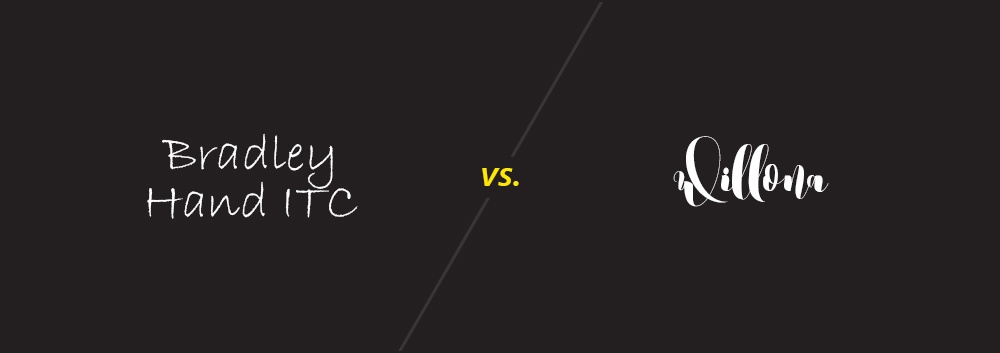
Why Bradley Hand ITC Is The Worst
Let us ignore the irony that are handwritten fonts for a second. This is just bad handwriting. Who gave Bradley is own font? C'mon, people.
Why Willona Is The Worst
Willona, you're taking the fall for the entire Millennial Wedding Script genre here. There's a new custom typeface popping up everyday that more or less looks exactly like this. You know the type. It's calligraphy with a dash of pumpkin spice latte.
#5 Mistral vs. #12 Amatic SC
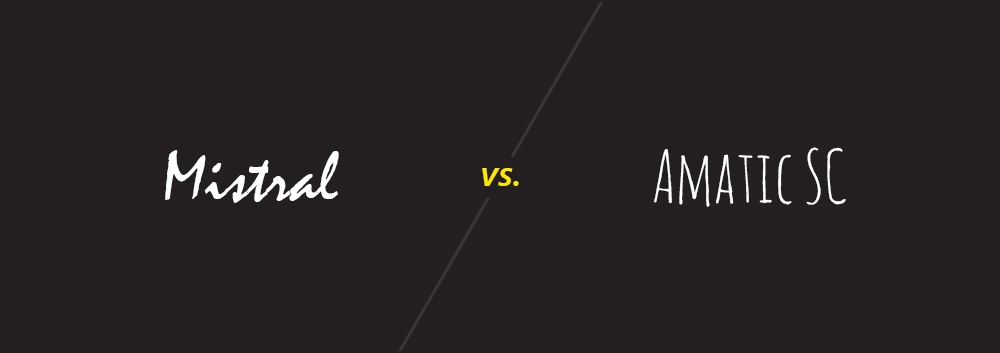
Why Mistral Is The Worst
Never has a cursive font so obviously been computer type. But that won't stop people from trying. You know those insurance company letters you get in the mail that put a few words in red on the top of the envelope to make you think it's important and actually handwritten? It's not real. It's Mistral.
Why Amatic SC Is The Worst
If terrible fonts had a "Top Prospects" list, Amatic SC would be leading the charge. It has skyrocketed in overuse in recent years, primarily in the Inspirational Quotes On Foggy Pine Trees Background department.
#4 Chalkboard vs. #13 Apple Chancery
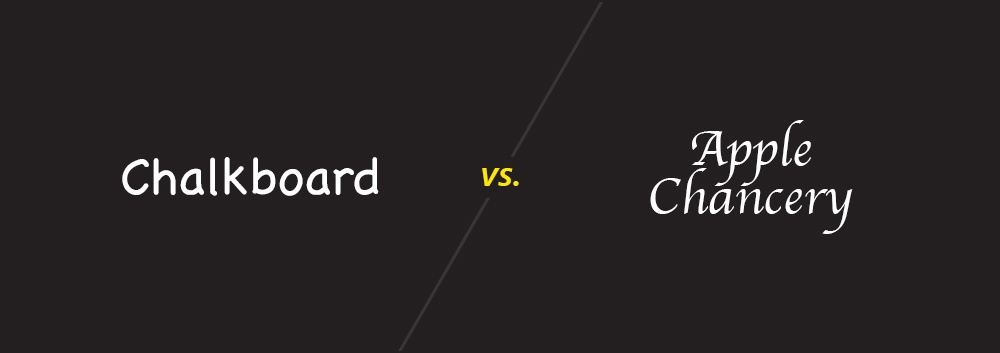
Why Chalkboard Is The Worst
Wait...is that?
No, it is not Comic Sans. Someone actually spent the time to make a typeface that is allllmost Comic Sans, but not quite. I think that makes it worse.
Why Apple Chancery Is The Worst
It this is a script font? Is this a serif font? Is this a decorative font? Whatever it is, it is a bad font.
#6 Segoe Script vs. #11 Vivaldi Italic
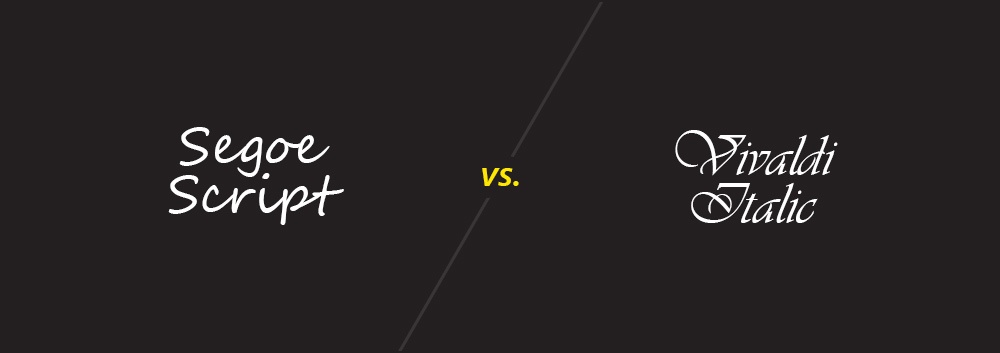
Why Segoe Script Is The Worst
We can thank Microsoft for popularizing this Mistral-inspired gem that allows people to believe they can design their own logos.
Why Vivaldi Italic Is The Worst
If you like illegible capital letters and unpleasantly distinct fake handwriting, Vivaldi Italic is your guy.
#3 Rage Italic vs. #14 Freestyle Script
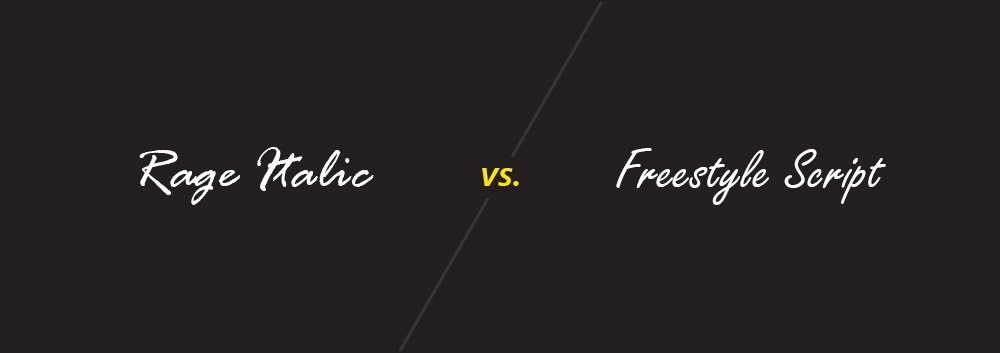
Why Rage Italic Is The Worst
I'll give Rage Italic this: it is appropriately named. It's been infuriating me for longer than I care to remember.
Why Freestyle Script Is The Worst
Freestyle Script is Adobe's best shot at obviously not fooling anyone into believing they're looking at handwriting. Even the default kerning leaves ugly gaps between the characters.
#7 Kristen ITC vs. #10 Noteworthy
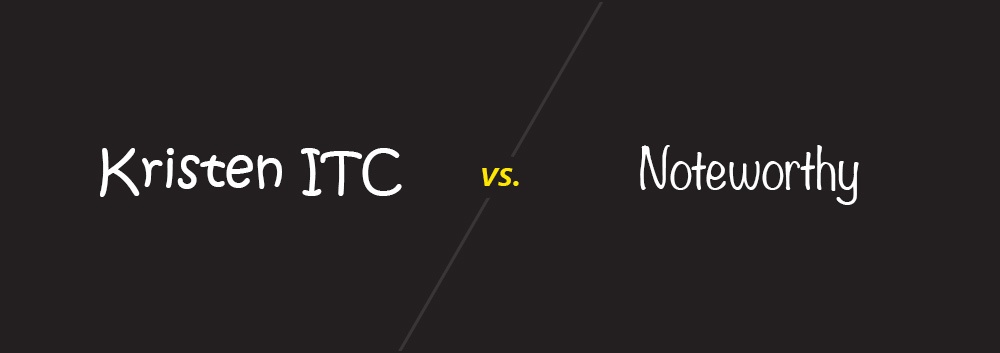
Why Kristen ITC Is The Worst
Oh, come on. You're better off taking a physical crayon and just haphazardly scribbling over your monitor than you are producing any material written in Kristen ITC.
Why Noteworthy Is The Worst
Yep, this is the font your Facebook friend from high school overlays in neon green on some pyramid sch—sorry, "multi-level marketing business opportunity"—product photo she's trying to shill.
No thanks, Kathy.
#2 Lucida Calligraphy vs. #15 Vladimir Script
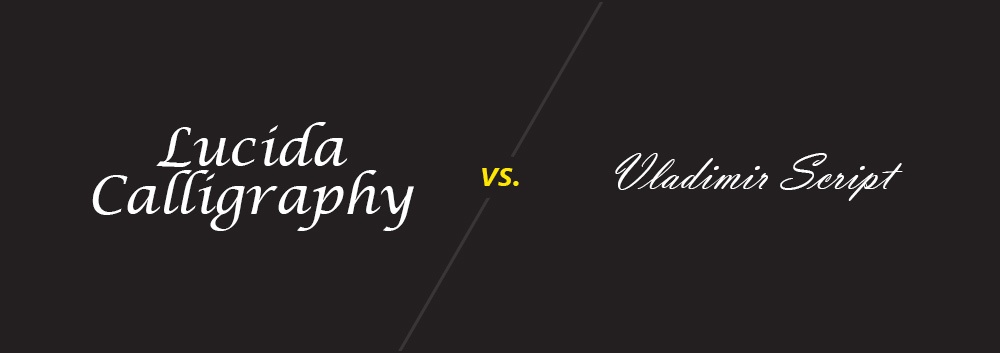
Why Lucida Calligraphy Is The Worst
Lucida Calligraphy is under-the-radar terrible. It hides behind public punching bags like Comic Sans hoping you won’t notice it’s egregious use on the entire PTA Bake Sale flyer. We see you now, you fraud. How do you sleep at night calling yourself calligraphy?
Why Vladimir Script Is The Worst
If people confuse you for Palace Script MT, you're not in a good spot.